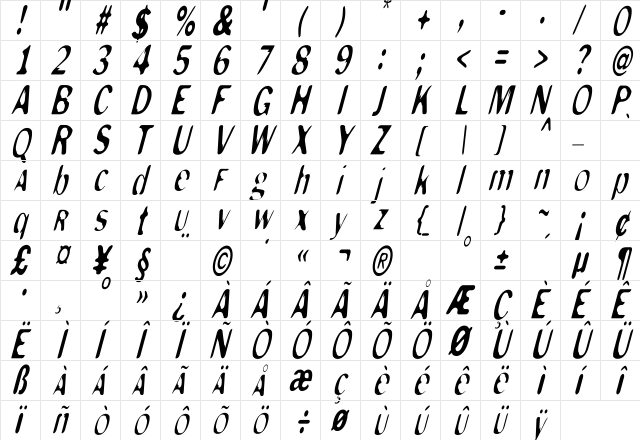
MonkeyCaughtStealing Regular
Design Context for MonkeyCaughtStealing Typeface
MonkeyCaughtStealing is a composed and adaptable typeface that performs quietly and consistently across a wide range of design contexts.